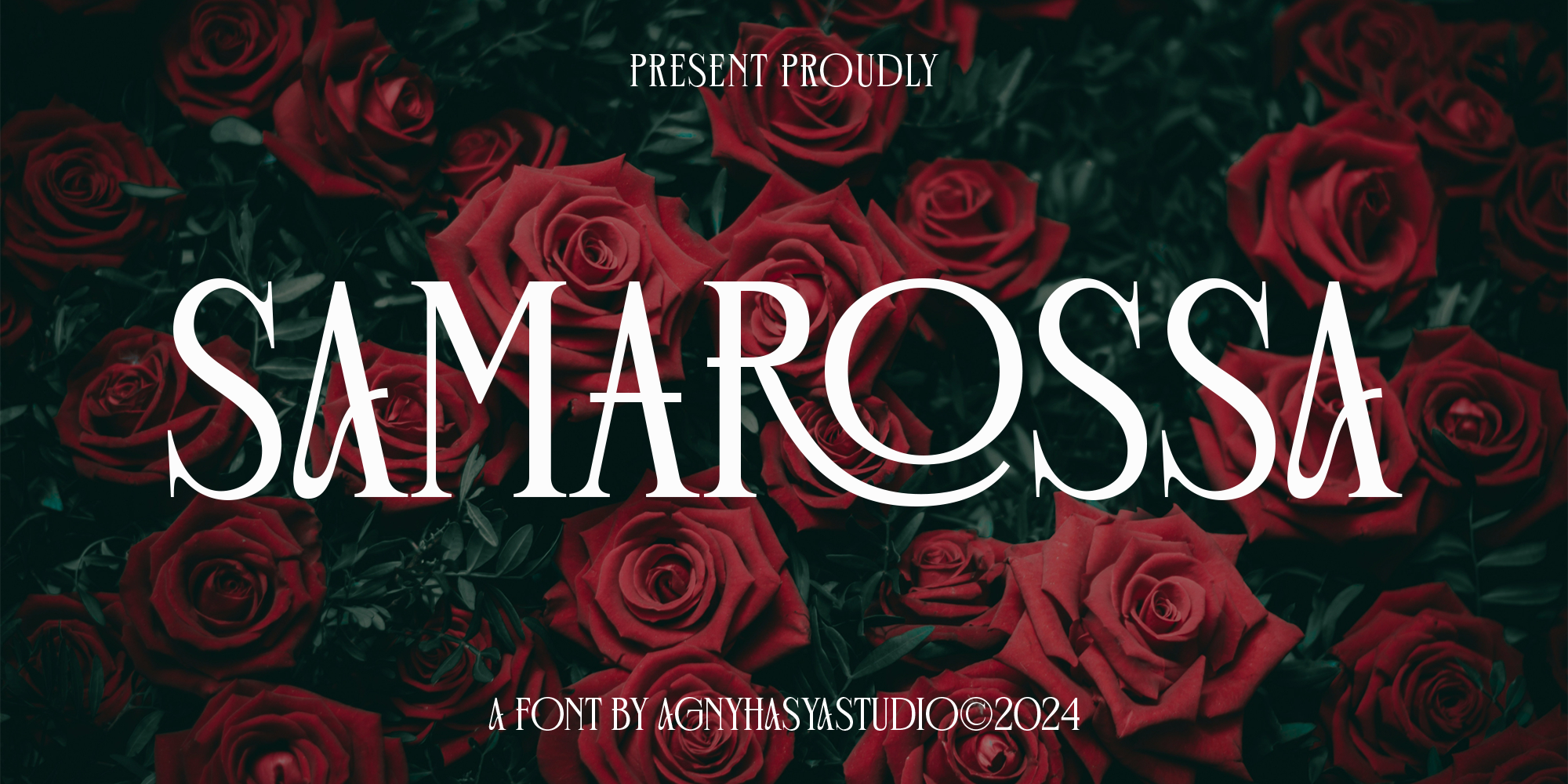
Samarossa Font excels in diverse design applications including Mediterranean restaurant branding, coastal resort marketing, sunset-inspired fashion campaigns, warm weather lifestyle magazines, romantic vacation materials, Italian-inspired packaging designs, golden hour photography portfolios, and luxurious travel destinations that require sunset elegance and Mediterranean sophistication.
What makes Samarossa Font truly exciting is its enchanting capture of Mediterranean sunset beauty and coastal elegance that embodies the warm, golden hues and romantic atmosphere of Italian and Spanish coastlines during the magical hour when day transforms into evening. This captivating typeface features flowing letterforms with subtle curves that evoke images of terracotta rooftops, olive groves, and the gentle waves that kiss Mediterranean shores as the sun paints the sky in brilliant shades of amber and rose. The font's romantic character reflects the timeless appeal and leisurely sophistication of Mediterranean culture, making it perfect for brands that want to communicate warmth, romance, and the effortless elegance of coastal living. Its sunset-inspired appearance creates immediate associations with vacation luxury and Mediterranean charm.
The Samarossa Font family includes multiple weights and coastal variations designed to enhance Mediterranean communication. The collection features Light, Regular, Medium, and Bold weights, each maintaining the font's characteristic sunset appeal while offering different levels of coastal presence. The family also includes decorative elements inspired by Mediterranean motifs, flowing flourishes that simulate ocean breezes, and stylistic alternates that add romantic personality and coastal customization. Additional features include contextual ligatures and sunset sets that create warm, elegant text arrangements perfect for luxury travel and lifestyle applications.
Travel and hospitality professionals consistently choose Samarossa Font Free Download for projects requiring authentic Mediterranean character and coastal credibility. The font's romantic nature makes it particularly effective for luxury resorts, travel agencies, and lifestyle brands targeting audiences who appreciate Mediterranean culture and coastal sophistication. Its excellent readability across various applications ensures effective communication while maintaining the distinctive sunset character that conveys warmth and romantic elegance.
The advanced OpenType capabilities of Samarossa Font include contextual alternates, stylistic sets, and comprehensive character support that accommodates Mediterranean terminology and travel expressions while preserving the font's authentic coastal character. The technical precision ensures consistent sunset appearance across different hospitality applications and travel platforms.
For creative professionals seeking a typeface that embodies genuine Mediterranean heritage and sunset sophistication, Samarossa Font offers unparalleled coastal appeal and romantic elegance. Its ability to convey Mediterranean warmth while maintaining functional communication makes it invaluable for travel brands, hospitality companies, and luxury lifestyle organizations. The font's distinctive sunset character ensures memorable coastal impact across all applications, creating powerful visual identity systems that celebrate the timeless beauty of Mediterranean sunsets and the romantic allure of coastal destinations that inspire wanderlust and sophisticated travel experiences.